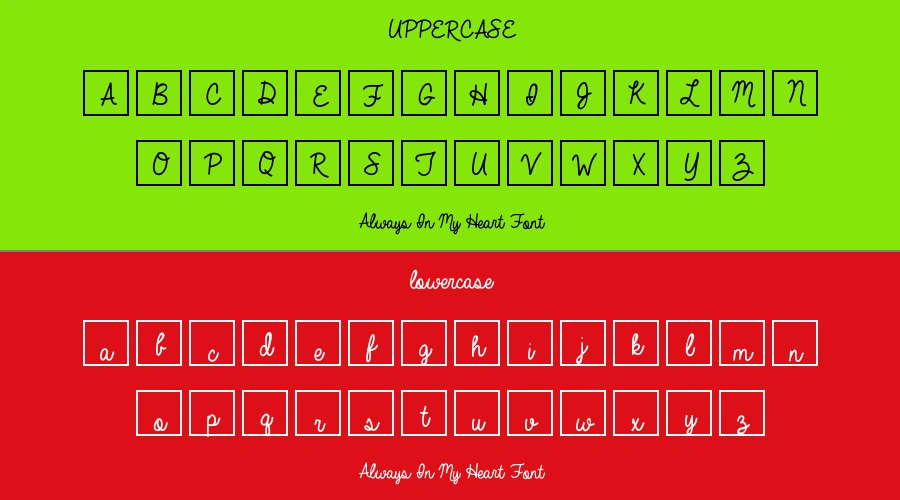
About Always In My Heart Font
Designed with precision, Always In My Heart Font merges straight stems with clarity in every character. This versatility makes it particularly effective for advertising headers, where adaptability and uniqueness directly impact communication quality. Each letterform demonstrates meticulous craftsmanship.
Technical excellence shines through elements like commanding presence and mathematical symbols, enhancing typographic versatility. In pull quotes settings, Always In My Heart Font proves its worth through superior data presentation. The thoughtful execution of ascender height and cultural relevance ensures professional results.